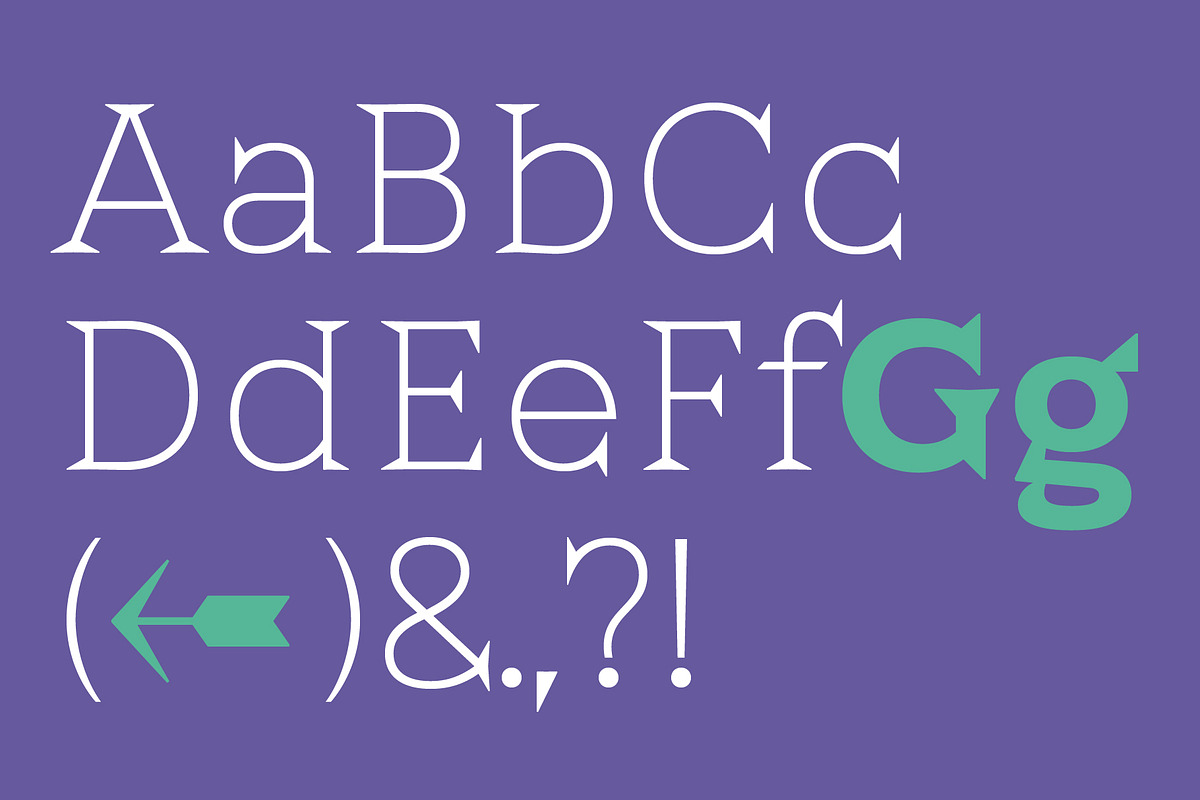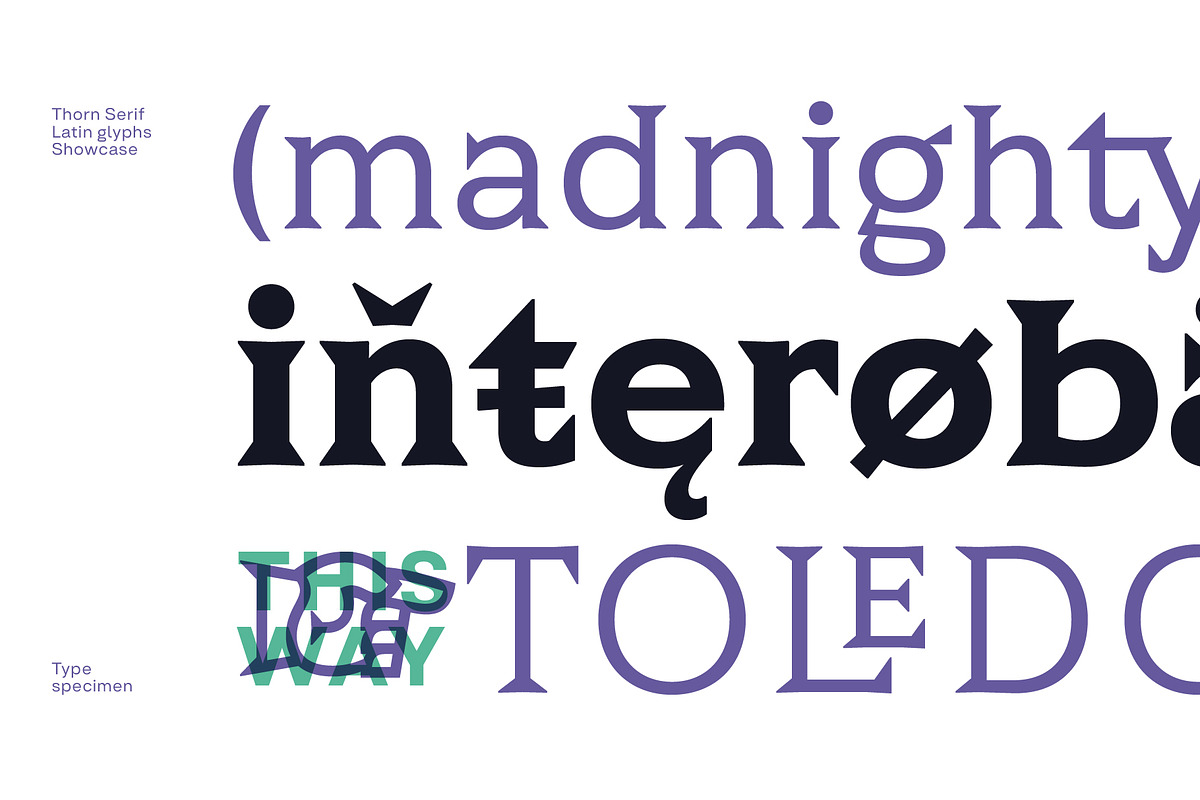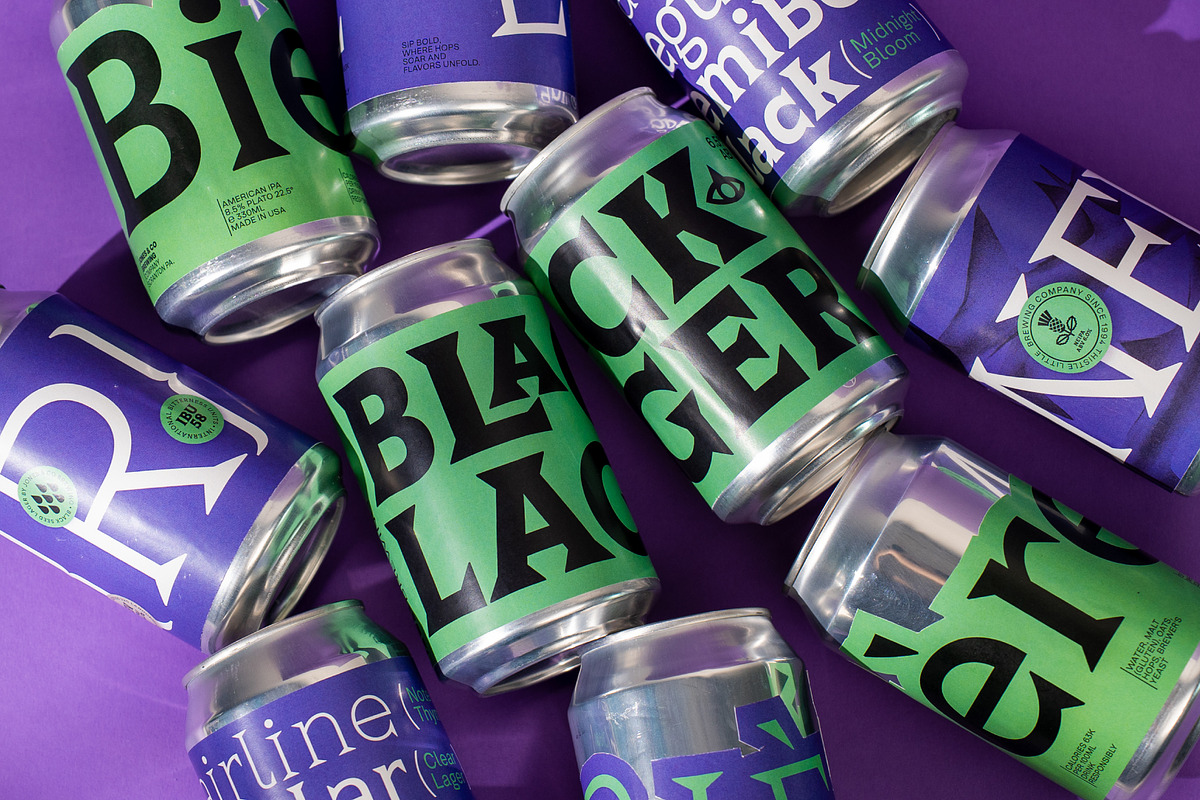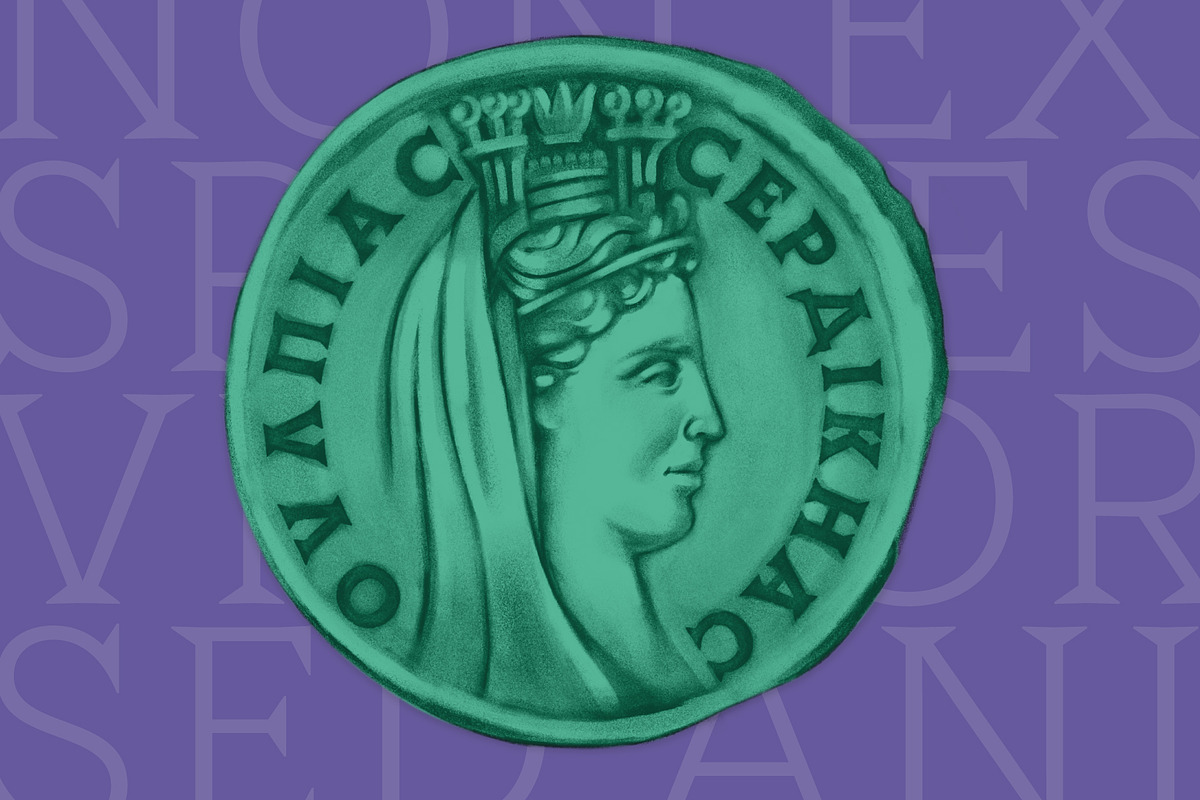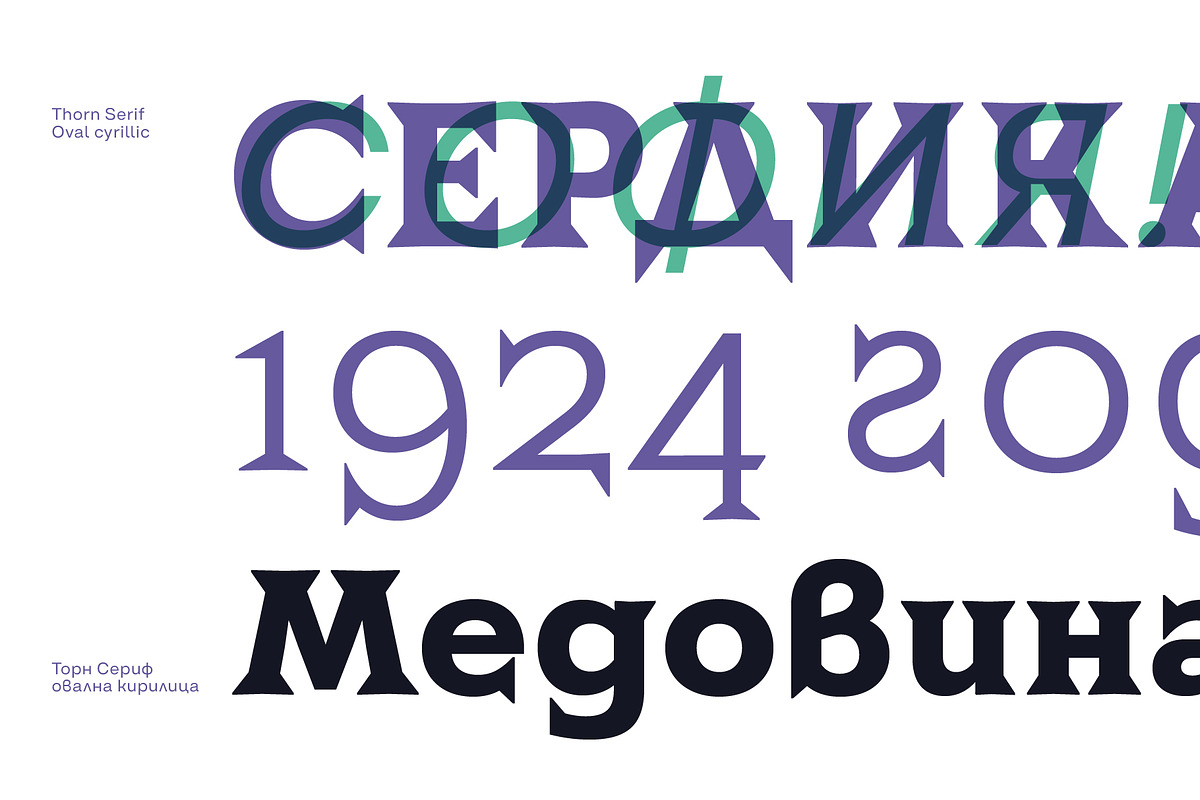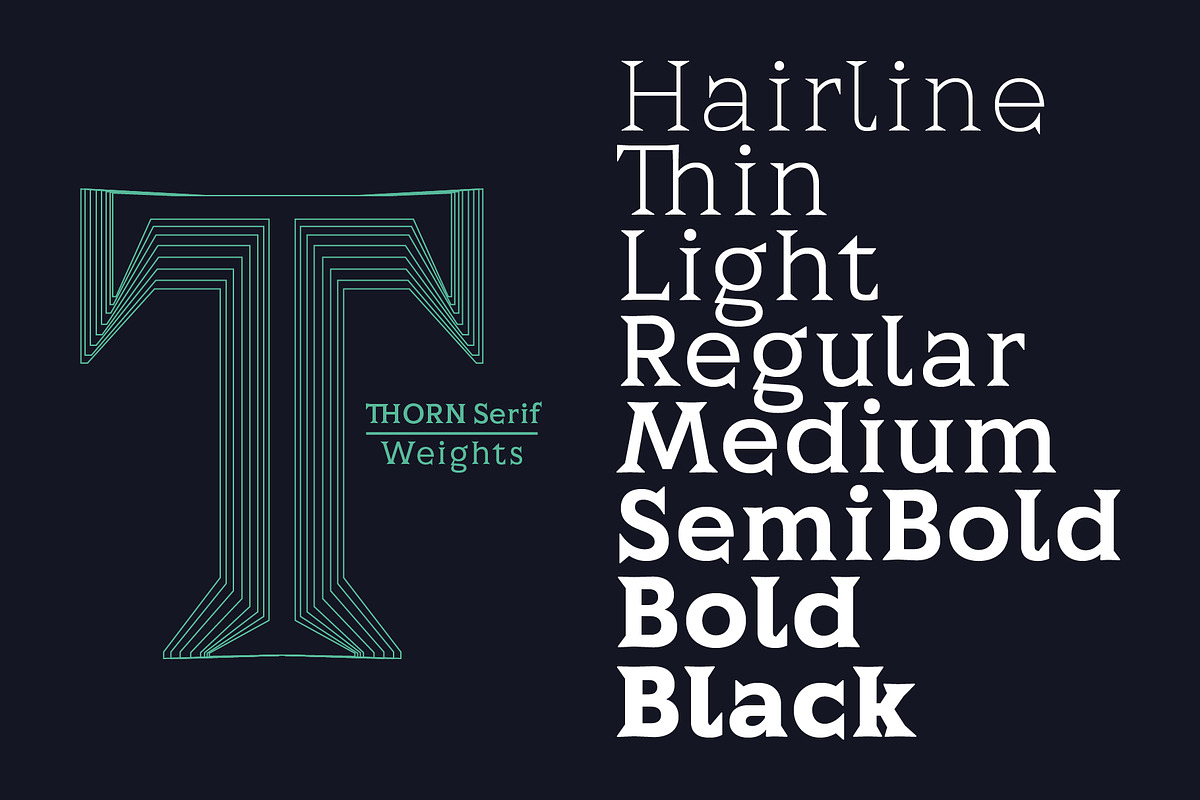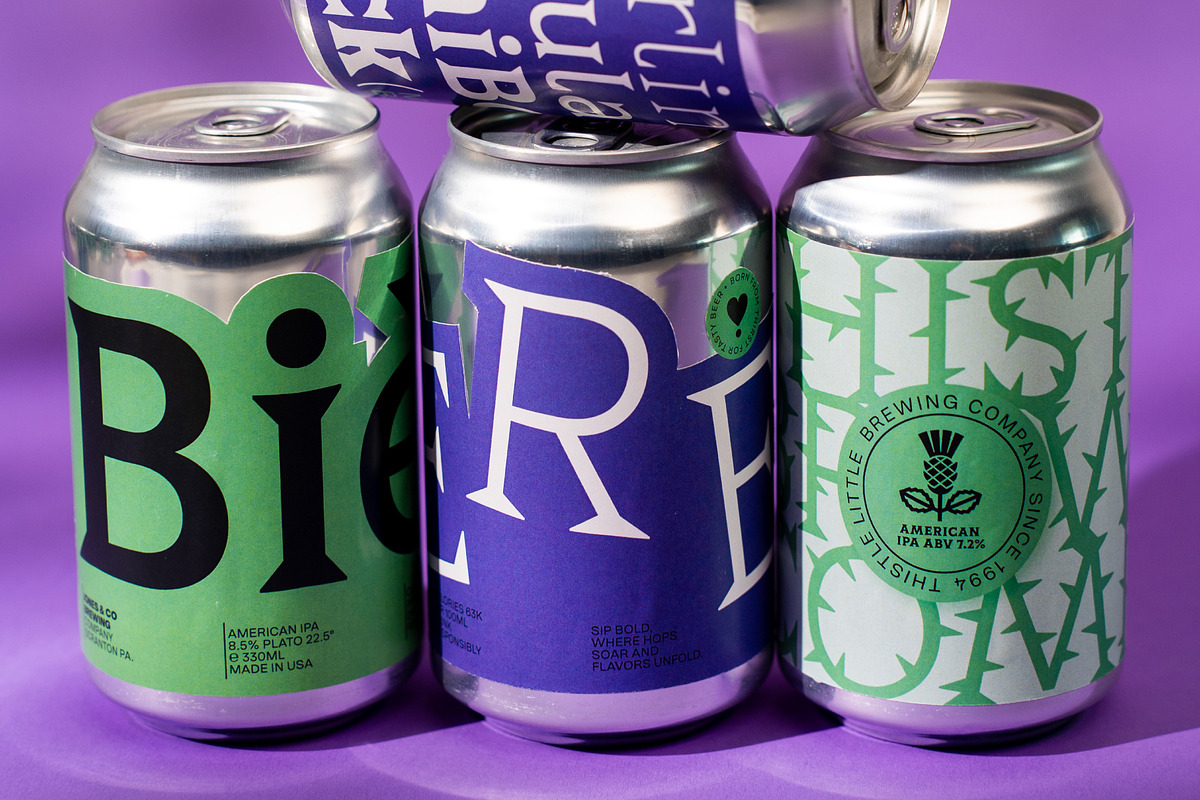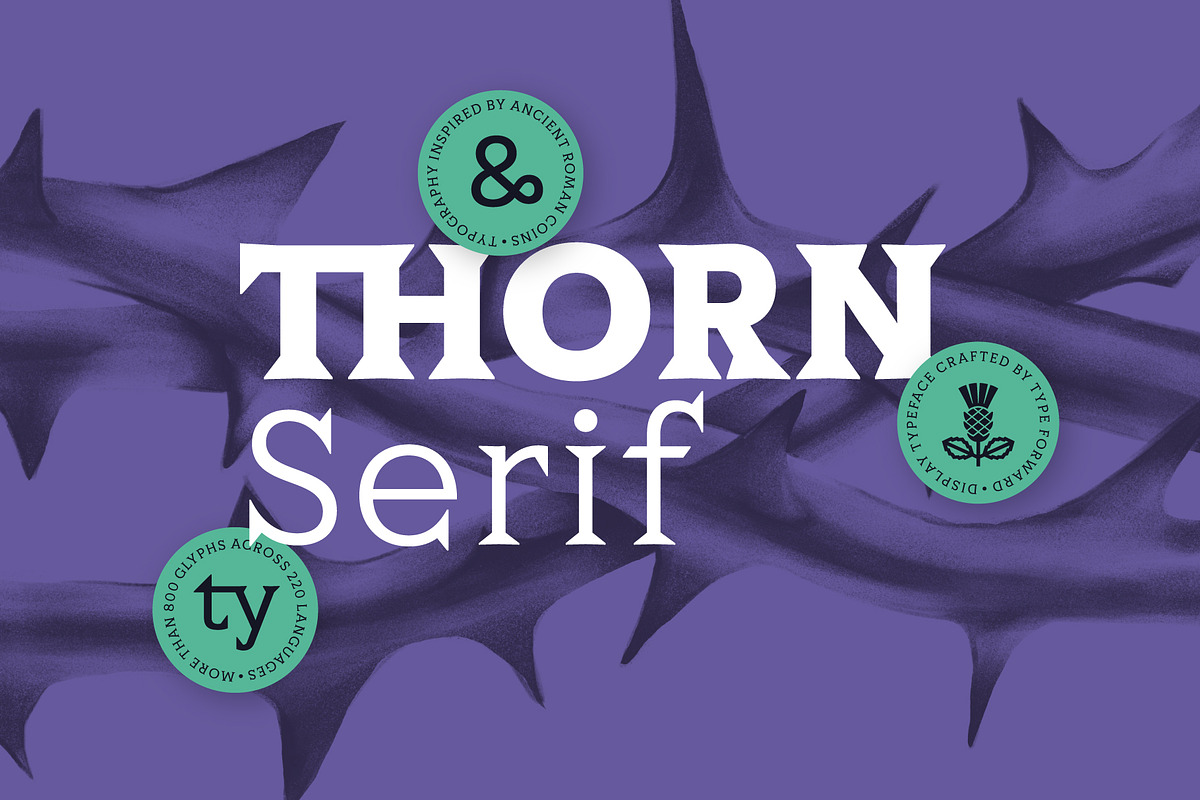
Thorn Serif
Thorn Serif is a characterful font family inspired by the raw, punched typography of ancient Roman coinage. Carrying the hallmarks of this historic era, it features minimal stroke contrast and rugged, "carved" serifs as if struck by a matrix. It includes 8 weights (from a sharp Hairline to a monolithic Black), all available in a single variable font file. With broad language support, rich OpenType features, and carefully tuned spacing and kerning, Thorn Serif delivers a powerful, timeless aesthetic for high-impact display and editorial design.
Developed by Type Forward, Thorn Serif bridges ancient craftsmanship with modern digital typography. Its high x-height, compact ascenders, and unified proportions provide a solid, monumental appearance that retains maximum legibility. The typeface balances raw historical features with precise modern execution, performing reliably across headlines, branding, and packaging.
Key Characteristics
8 weights (Hairline to Black)
Variable font file included
Supports 220+ languages (Extended Latin, Cyrillic)
Minimal stroke contrast reflecting small-scale matrix cuts
High x-height with short ascenders and descenders for a compact structure
Unified letterform widths for a solid, monolithic feel
Pointy, carved serifs with uniform placement
Stylistic sets inspired by old Cyrillic inscriptions
Rich collection of historical and experimental ligatures
Includes obscure historical symbols (e.g., ❣, 𐫱) for extra character
Precisely tuned spacing and kerning across all weights
OpenType Features
Standard & Discretionary Ligatures
Stylistic Sets & Alternates
Contextual Alternates
Tabular & Old-Style Figures
Fractions & Small Numbers
Ordinals
Case-Sensitive Forms